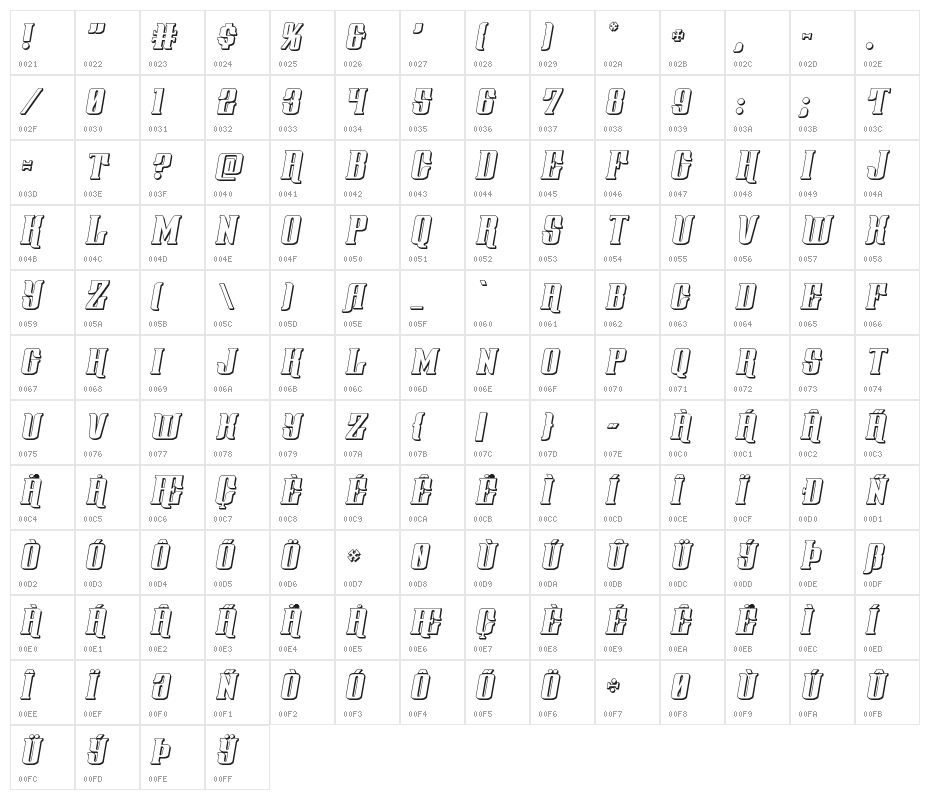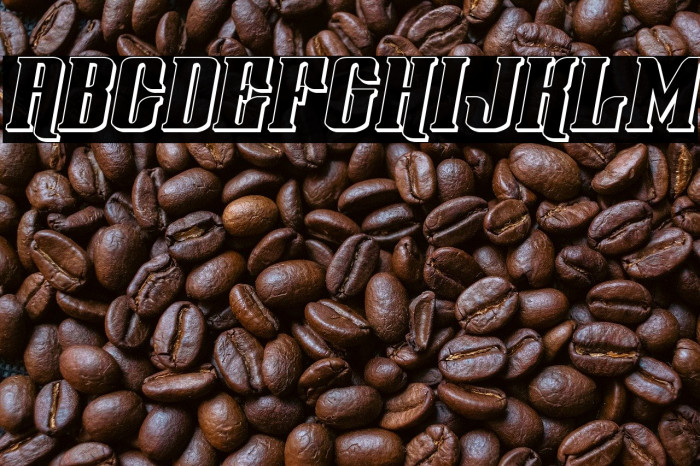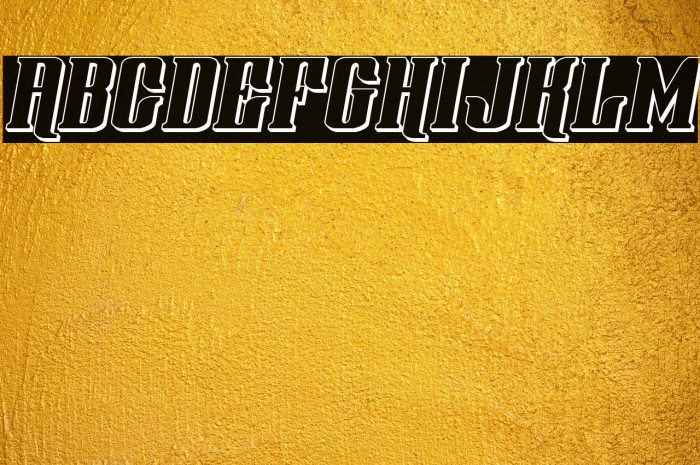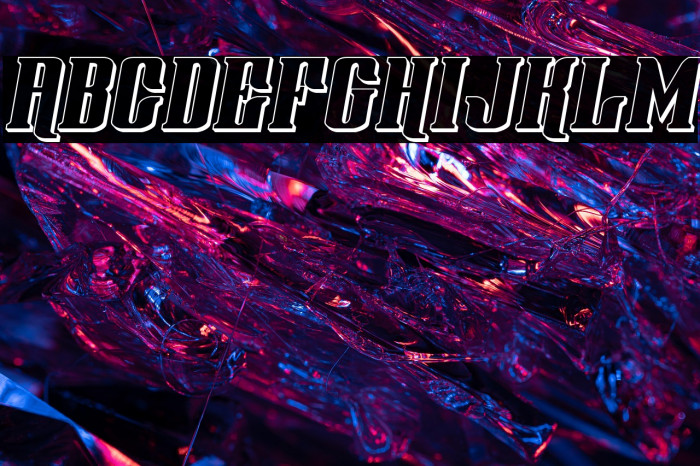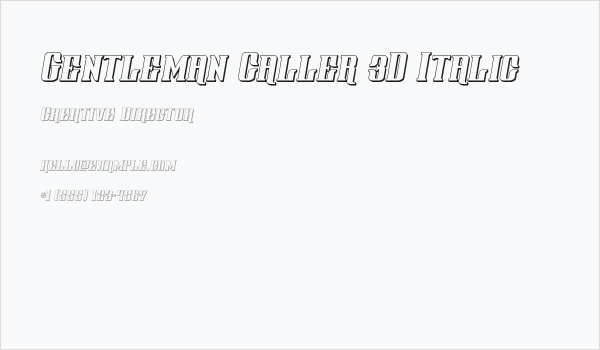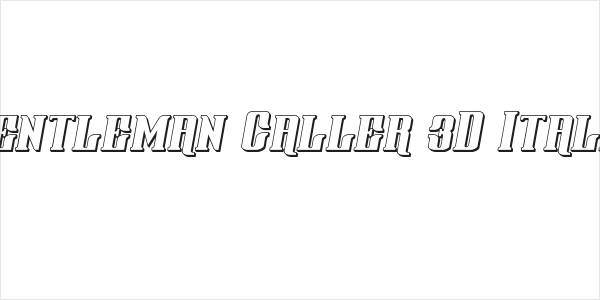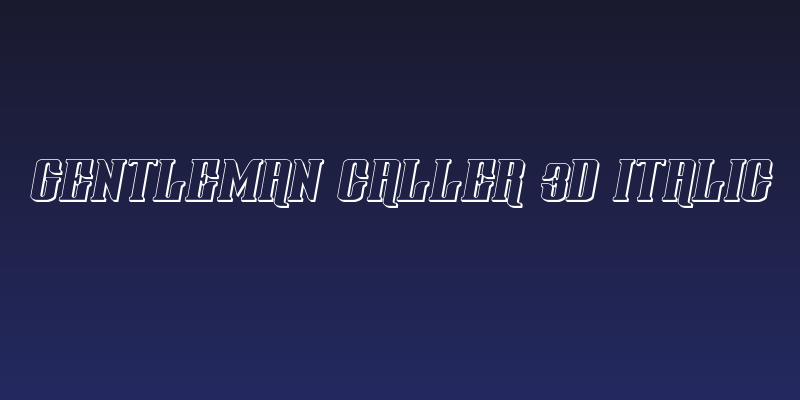
Gentleman Caller 3D Italic Font
Gentleman Caller 3D Italic Description
This font features a bold, three-dimensional style with italicized characters, giving it a dynamic and eye-catching appearance. The letters are outlined, adding depth and a shadow effect that enhances the 3D illusion. The uppercase and lowercase letters maintain a consistent style, with sharp angles and clean lines. The numerals and special characters follow the same design principles, ensuring uniformity across all elements. This font's unique style makes it suitable for projects that require a strong visual impact.
Proposed ProjectsIdeal for posters, headlines, logos, and any design requiring a striking, bold typeface.